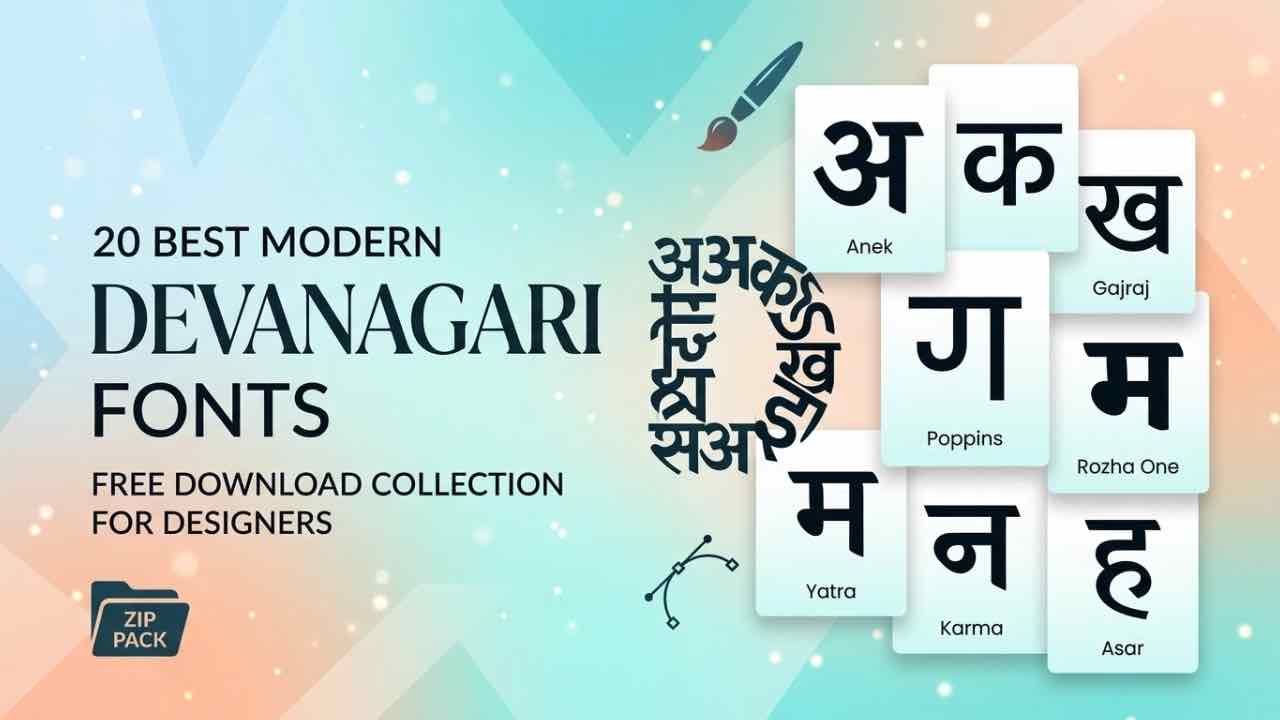
Every digital visual project requires clean typography to capture reader interest, so when creators plan to download all devanagari fonts in a single comprehensive bundle, having versatile options transforms creative output. Graphic designers, video editors, web developers, and desktop publishers rely heavily on high-quality Indian script typefaces for Hindi, Marathi, Nepali, and Sanskrit layouts. Selecting modern, beautifully balanced letterforms establishes strong brand authority, improves mobile screen readability, and boosts visual impact across print media. You can browse our graphic design assets collection to discover more regional typography bundles and creative resources.
Digital design workflows demand various structural styles, ranging from sleek geometric sans-serif shapes to expressive handwritten scripts, traditional serif forms, and heavy display banners. Searching individual font repositories across separate websites often slows production schedules and causes encoding conflicts. This comprehensive modern guide reviews twenty leading Devanagari typefaces, highlights their distinct visual features, and offers actionable design recommendations for web platforms, mobile apps, video subtitles, thumbnail graphics, and print publications.
Why Creative Professionals Need to Download All Devanagari Fonts in One Collection
When you decide to download all devanagari fonts in a single curated archive, you immediately eliminate missing font errors when sharing editing files between team members. Having every modern Unicode typeface and legacy design file installed on your system speeds up graphic production, simplifies bilingual layout balancing, and guarantees crisp rendering across every device screen.
Top 20 Devanagari Fonts Every Designer Should Use
Modern web standards and design applications require reliable rendering across mobile screens and desktop displays. Indian script typography has evolved rapidly, giving creators an impressive variety of visual weights and stylistic aesthetics. Explore our technical guide on how to pair Indian language fonts with English typography for multi-lingual branding success.
1. Karma Hindi Font
Karma Hindi font delivers an elegant, traditional calligraphic look tailored for modern digital displays. The letterforms show subtle stroke weight shifts that emulate classic ink pen strokes while maintaining excellent web performance. Consequently, fashion magazines, organic lifestyle brands, literary blogs, and cultural websites frequently choose Karma to project sophistication and artistic warmth. DOWNLOAD
2. Rajdhani
Modular geometry and condensed square proportions define the industrial aesthetic of Rajdhani. Engineered with open character structures, this typeface excels in technology branding, sports graphics, digital UI panels, and futuristic poster designs. Furthermore, Rajdhani combines effortlessly with geometric Latin fonts in dual-language corporate identities. DOWNLOAD
3. Kalam
Creative design projects frequently require a warm, human, and personal touch. Kalam captures real handwriting aesthetics through relaxed curved loops and natural stroke angles. Graphic artists regularly use Kalam for children’s educational materials, casual social media quotes, recipe books, personal vlogs, and interactive web overlays. DOWNLOAD
4. Rozha One
Rozha One commands immediate visual attention through dramatic contrast between thick and thin stroke lines. Inspired by vintage large-format poster printing, this display typeface creates striking hero headers, magazine front covers, and high-impact video title overlays. Designers typically pair Rozha One with clean sans-serif body fonts to preserve overall page harmony. DOWNLOAD
5. Poppins Devanagari
Geometric precision makes Poppins one of the most popular web font choices across the world. The Devanagari extension features perfectly circular loops, clean straight lines, and balanced character proportions. Therefore, modern corporate portals, SaaS dashboards, mobile apps, and tech startup websites rely on Poppins Devanagari as their default body typography. DOWNLOAD
6. Anek Devanagari
Flexibility stands as the key advantage of the Anek variable font system. Designed to suit flexible dynamic screens, Anek scales smoothly from ultra-condensed formats to broad structural widths. Consequently, graphic editors gain precise control over line length, text density, and visual weight in complex editorial layouts. DOWNLOAD
7. Eczar
Eczar grew out of detailed typographic research aimed at bringing vibrant personality to both screen and print media. It displays sharp terminal details, strong serifs, and robust character forms. Because it remains sharp at small point sizes, publishers select Eczar for book covers, quarterly journals, and editorial branding assets. DOWNLOAD
8. Yatra One
Inspired by hand-painted signage found along Indian railway lines, Yatra One offers deep cultural character and heavy visual weight. Its distinctive angled brush strokes reflect traditional outdoor sign painting techniques. Thus, festival banners, cultural event titles, movie posters, and heritage marketing campaigns regularly feature Yatra One. DOWNLOAD
Are Google Devanagari fonts free for commercial client work?
Yes, typefaces available on Google Fonts, including Karma, Rajdhani, Kalam, and Poppins, are completely open-source. Designers can freely use them in personal, commercial, digital, and print projects under the SIL Open Font License.